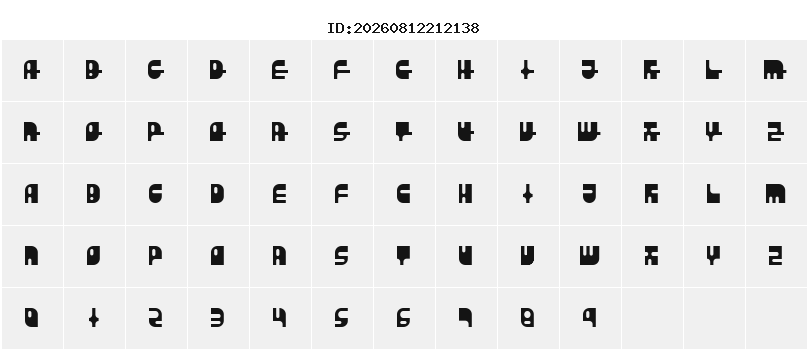
Revidendum Preview
• Font Name: Revidendum
• Full Font Name: Revidendum
• Designer: rtcz
• Manufacturer: rtcz
About Revidendum.ttf
Revidendum.ttf is a modern, elegant sans-serif font designed for ultimate readability and visual harmony. Perfect for branding, headlines, web design, and print materials.